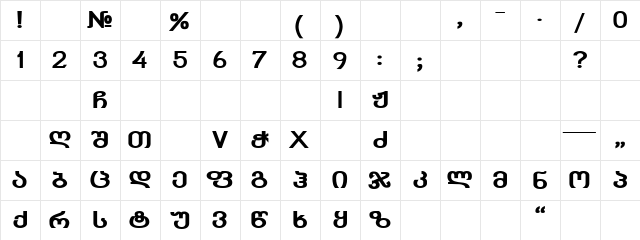
GEO-KolkhetyMtav bold Regular
Design Context for GEO-KolkhetyMtav bold Typeface
GEO-KolkhetyMtav bold takes a measured approach to typography — its balanced proportions and neutral character make it a reliable workhorse for both digital and print work. Its bold stroke weight gives it real presence on the page.